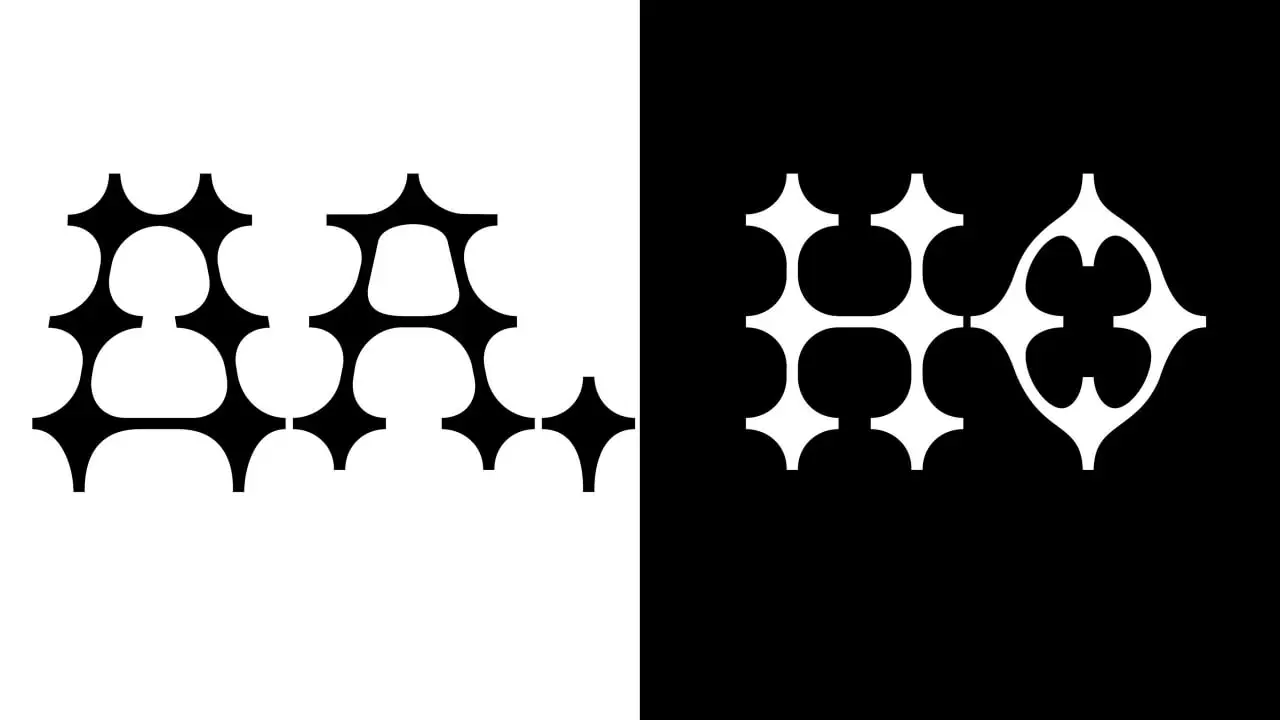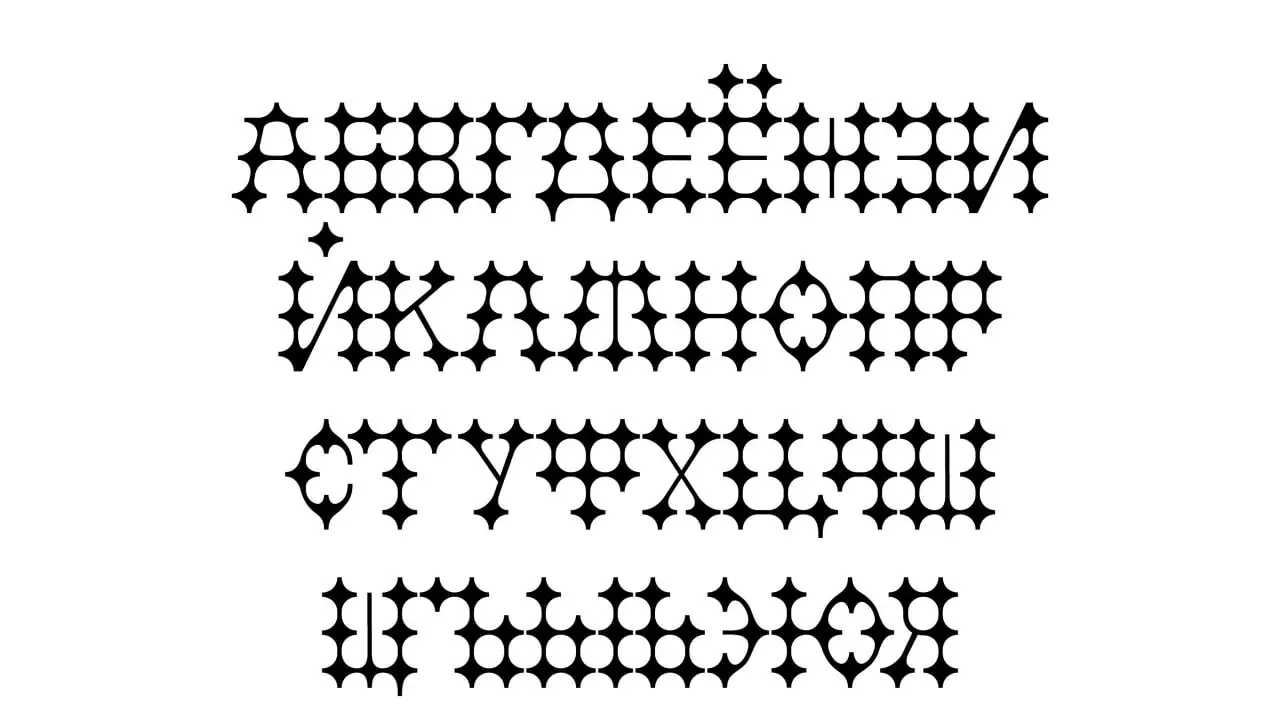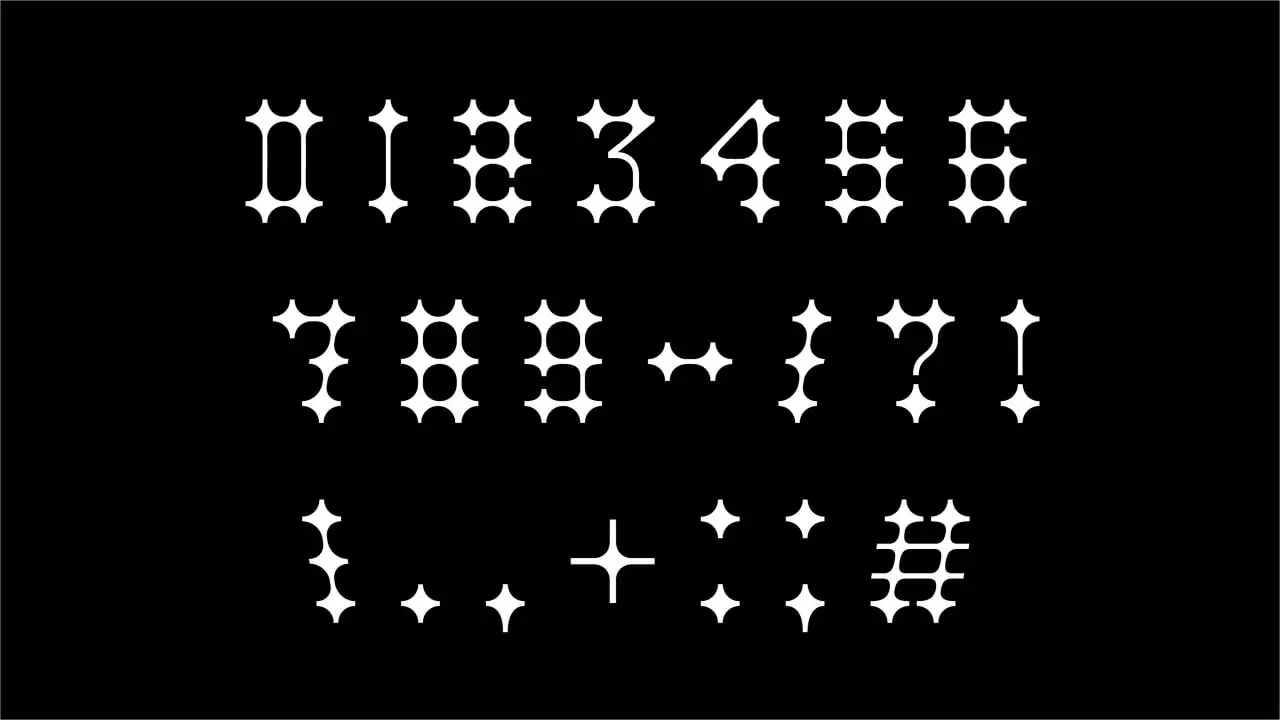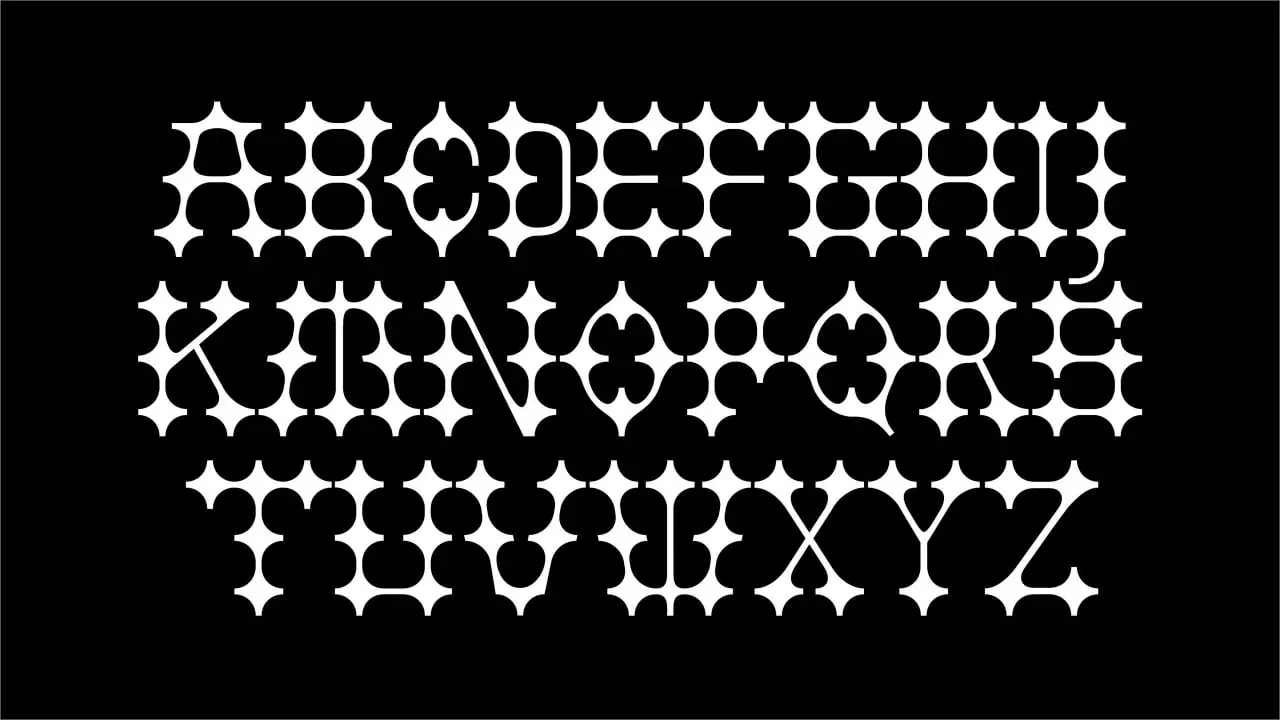
Trezybec Font By Ekaterina Nikolaeva
The Trezybec Font by Ekaterina Nikolaeva is a stunning typeface that brings elegance and sophistication to your design projects. This font features a unique blend of modern and classic styles, making it a versatile choice for various applications.
• Stylish letterforms with a contemporary flair
• Multiple weights for diverse design needs
• Uppercase and lowercase characters, numerals, and punctuation
This font is ideal for branding, logos, web design, and print materials. Its elegant design makes it perfect for invitations, business cards, and promotional materials.